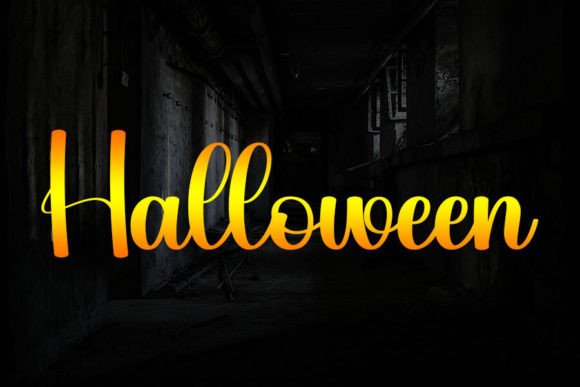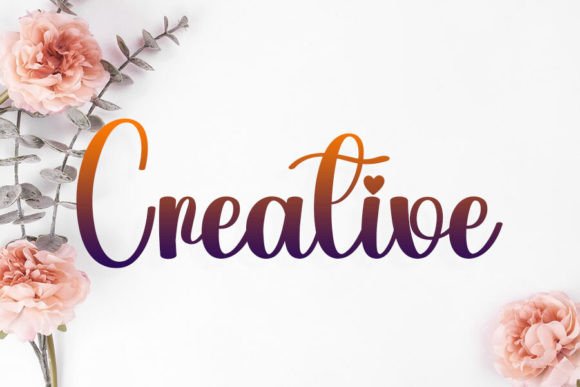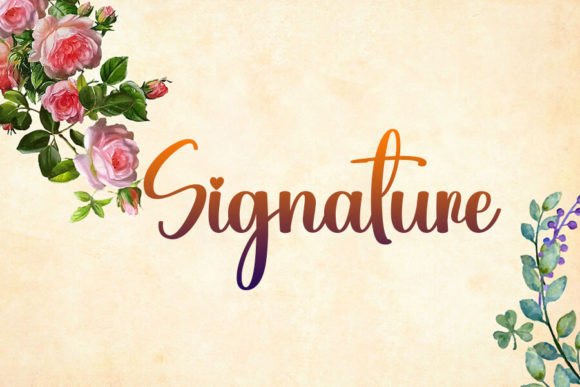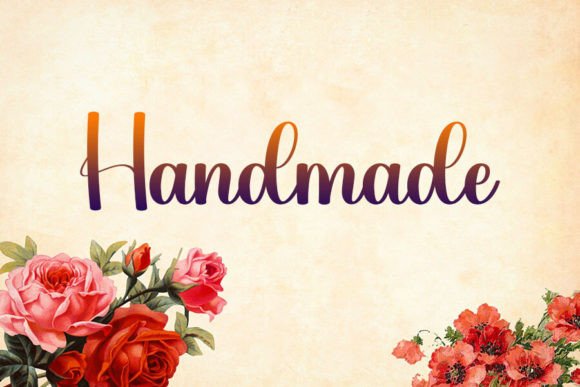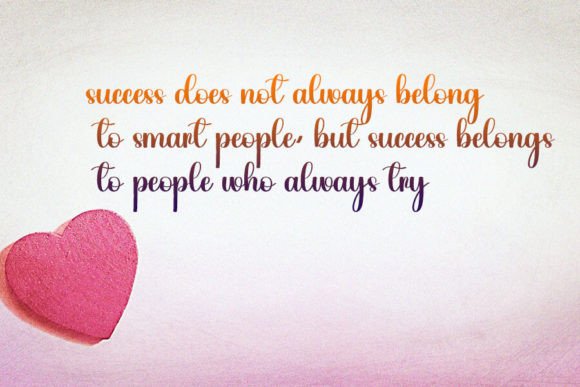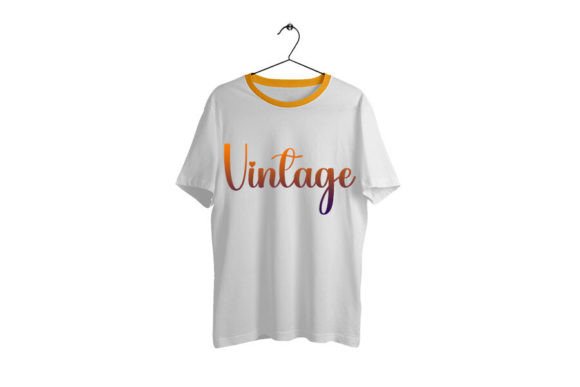
Introduction to Sekeleton Font
Have you ever stared at a blank page, feeling like the perfect design is just out of reach? You’ve got a great idea, but the right font is missing – the one that will bring your creative project to life. For designers, finding the perfect font can be a challenge, but sometimes it’s just a matter of knowing where to look. Enter the Sekeleton Font, a beautifully crafted handwritten font that’s sure to captivate your audience.
With its elegant touch and timeless style, the Sekeleton Font is a valuable resource for any designer looking to add a touch of sophistication to their work. Whether you’re working on a high-quality brochure or a creative project with a transparent background, this font is sure to impress. And the best part? It’s available for a free download, making it an accessible design resource for designers of all levels.
Key Features of Sekeleton Font
- High-quality design resource with a unique, edgy aesthetic, perfect for creative projects.
- Comes with a transparent background, allowing for seamless integration into any design.
- Resolution-independent, making it suitable for use in a variety of applications, from web design to print media.
- Designed to be highly legible, even at small font sizes, making it ideal for use in titles, headings, and body text.
Honest Review: Sekeleton Font
I recently stumbled upon the Sekeleton Font while searching for a design resource to enhance a creative project. As a designer, I was excited to explore its features and determine if it’s worth incorporating into my workflow.
Here’s what I like about the Sekeleton Font:
- ✨ High-quality design that’s perfect for minimalist and modern designs.
- ✨ Transparent background, making it easy to work with and customize.
However, there are a few limitations I encountered:
- ⚠️ Limited character set, which may not be ideal for longer texts or complex designs.
- ⚠️ Not suitable for display in smaller font sizes, as it may become difficult to read.
Overall, the Sekeleton Font is a great addition to any design library, especially for those who prefer a clean and simple aesthetic. While it may have some limitations, its high-quality design and transparent background make it a valuable resource for designers working on creative projects.
Tips for Getting the Most Out of Sekeleton Font
For optimal results, use Sekeleton Font with a high-quality image or graphic, and experiment with different font sizes and colors to create a visually appealing effect.
Common Use Cases for Sekeleton Font
Sekeleton Font is perfect for creative projects that require a unique and eye-catching font. Some common use cases include: branding and logos, marketing materials, and social media graphics.
Is Sekeleton Font suitable for use on digital screens?
Yes, Sekeleton Font is designed to be highly legible on digital screens, making it an excellent choice for creative projects requiring a clean and modern aesthetic. Its transparent background also helps it stand out in digital compositions.